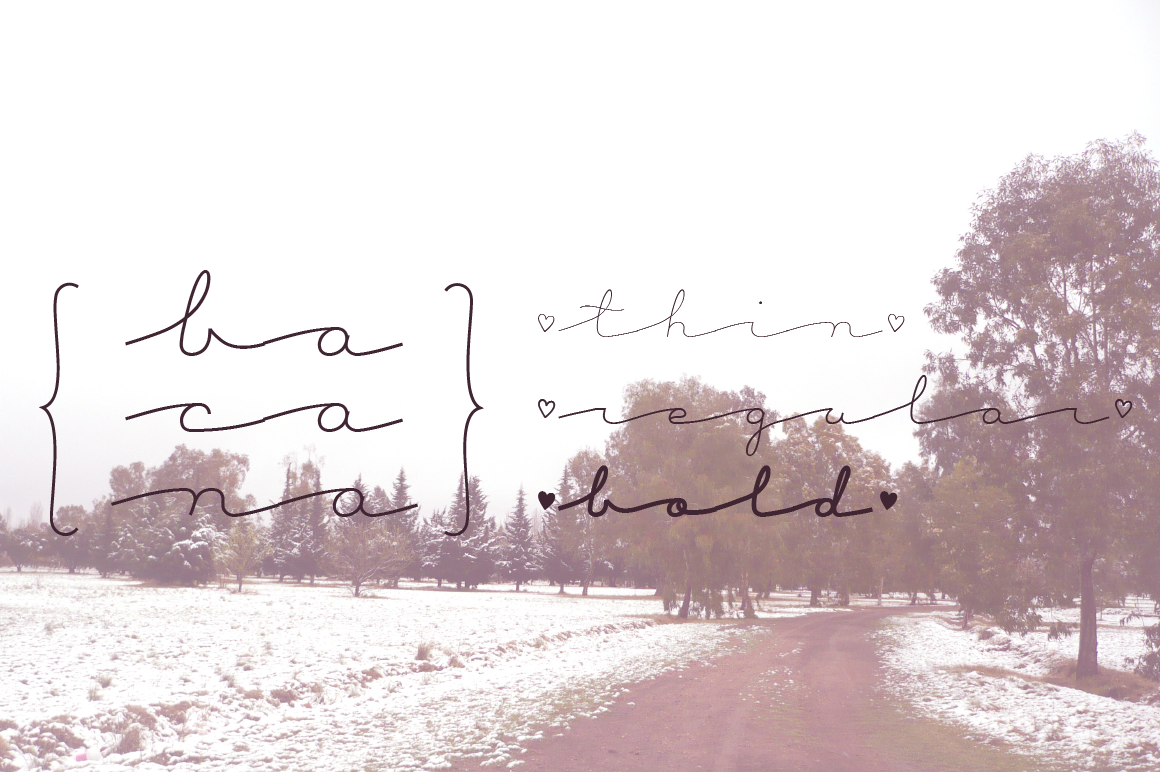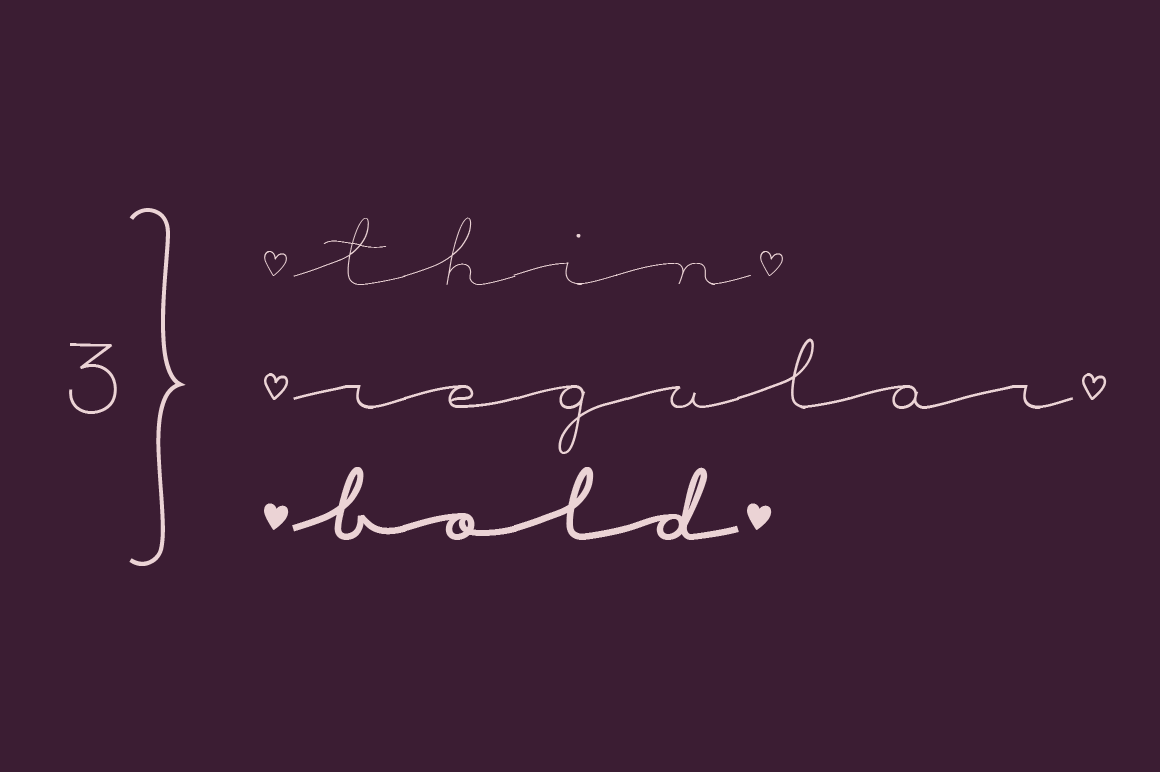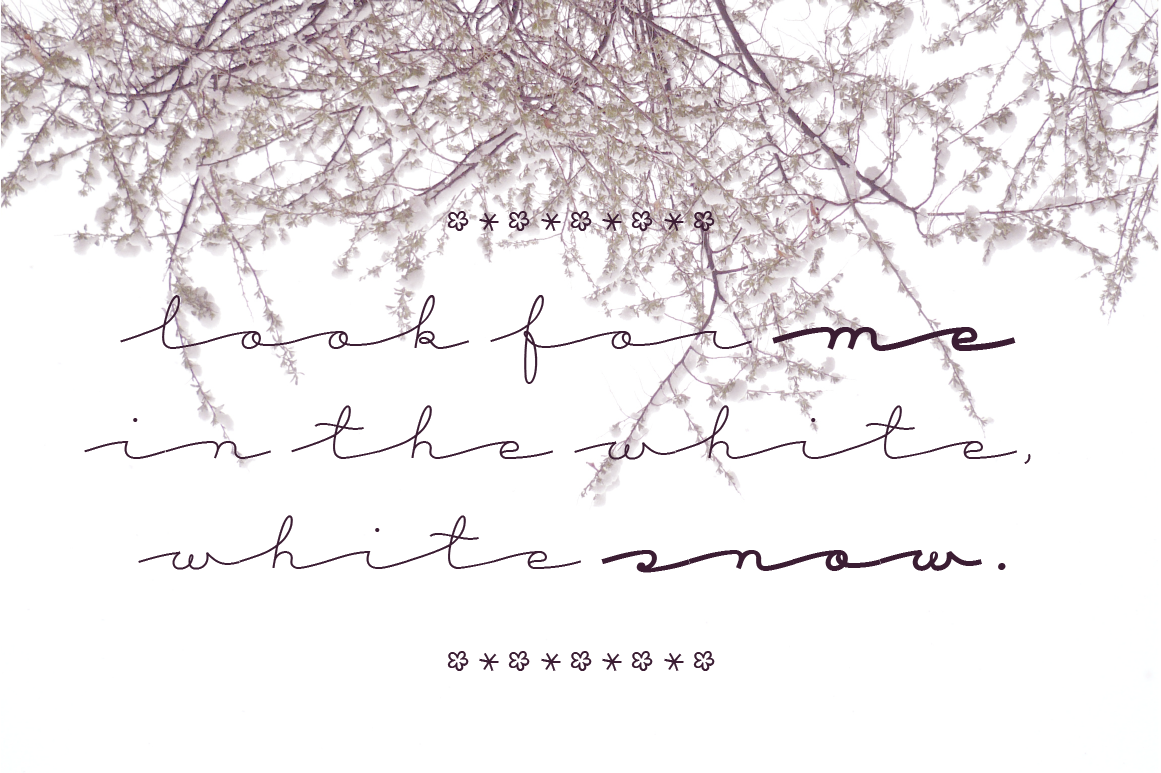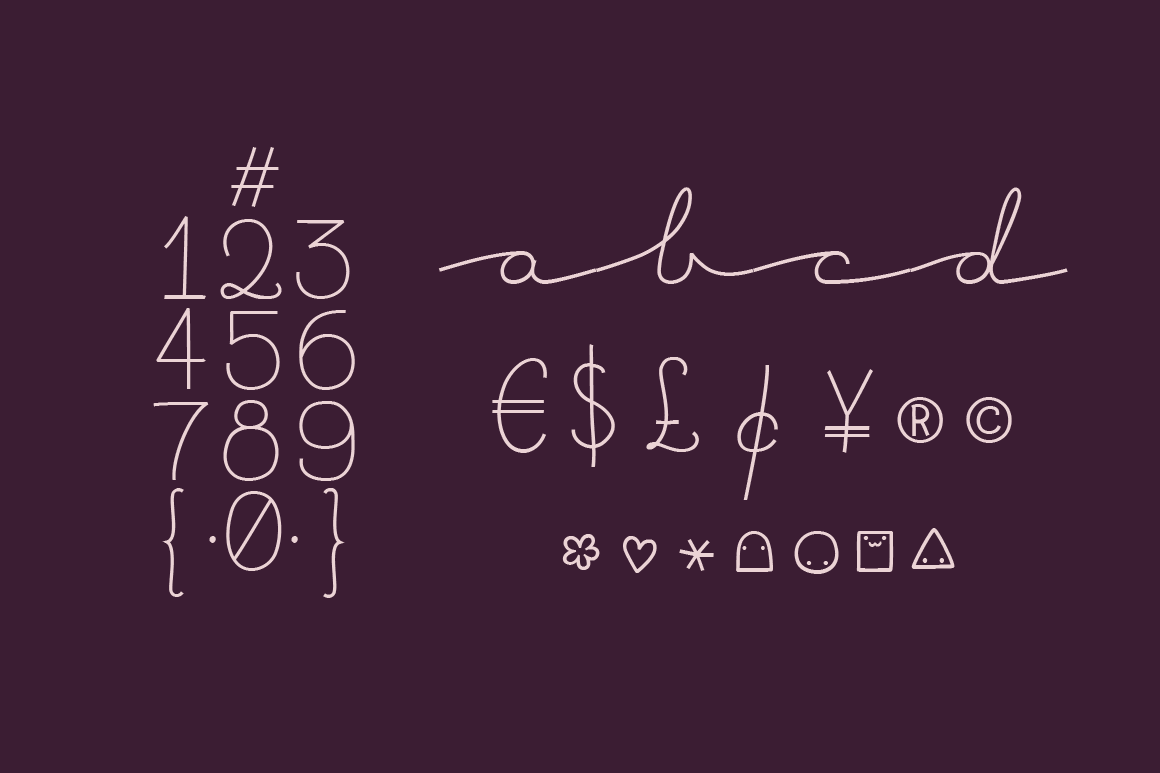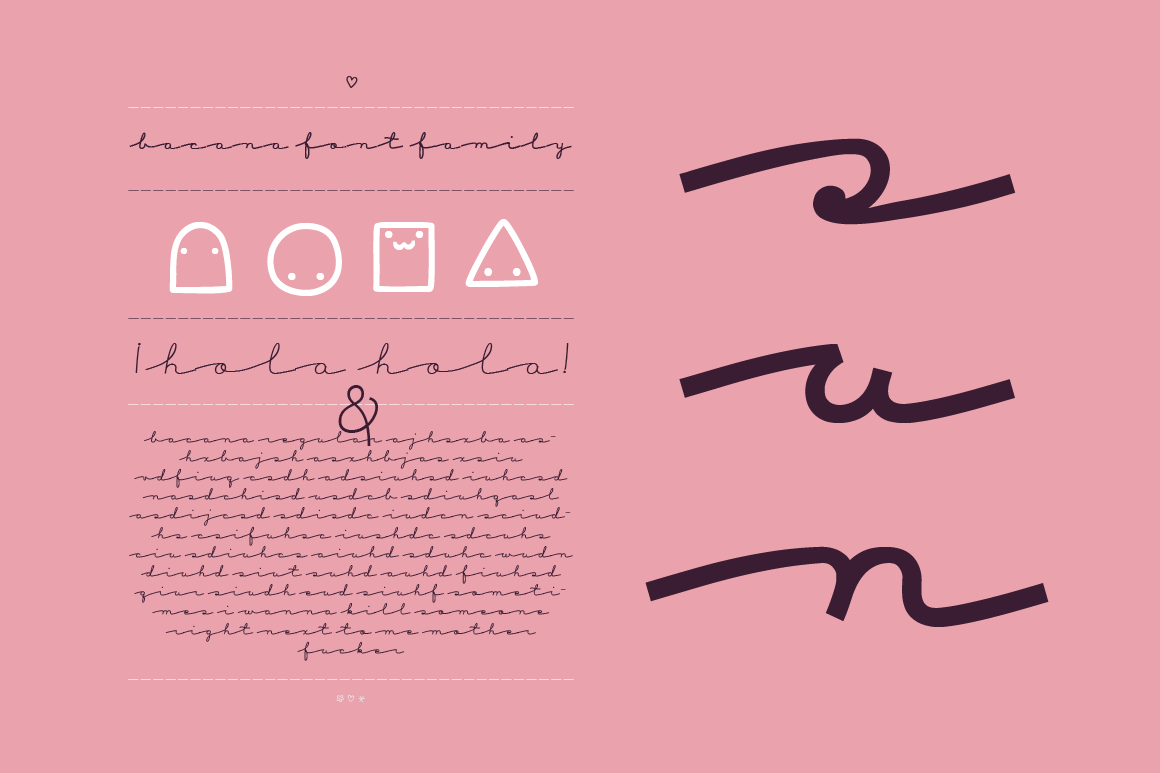
Bacana Font: Elevate Your Designs with a Casual, Swashy Display Font
Are you tired of using the same old fonts in your designs? Look no further than the Bacana Font, a casual, swashy display font that is sure to add a touch of elegance and sophistication to your projects. With its thin monoline design and three unique styles, Bacana Font is the perfect choice for designers and crafters looking to make a statement.
What is Bacana Font?
Bacana Font is a modern, display font that features a thin monoline design with a casual, swashy feel. The font comes in three styles, allowing you to create a wide variety of designs that are both stylish and cohesive. Whether you’re working on a branding project, a craft project, or simply looking for a new font to add to your collection, Bacana Font is a versatile choice that is sure to impress.
Key Features of Bacana Font
• Casual, swashy design: Bacana Font features a relaxed, swashy design that adds a touch of elegance to any project.
• Thin monoline design: The font’s thin monoline design makes it perfect for use in a variety of applications, from branding and advertising to crafting and DIY projects.
• Three unique styles: With three styles to choose from, you can create a wide range of designs that are both stylish and cohesive.
• High-quality design: Bacana Font is designed with high-quality craftsmanship in mind, ensuring that your designs look professional and polished.
Uses for Bacana Font
Bacana Font is a versatile font that can be used in a variety of applications, including:
• Branding and advertising: Use Bacana Font to create eye-catching logos, advertisements, and marketing materials that stand out from the crowd.
• Crafting and DIY projects: Add a touch of elegance to your crafting and DIY projects, such as handmade cards, gift tags, and scrapbook pages.
• Digital design: Use Bacana Font in your digital designs, such as social media graphics, blog headers, and website designs.
• Print design: Use Bacana Font in your print designs, such as brochures, flyers, and posters.
Tips for Using Bacana Font
Here are a few tips for getting the most out of Bacana Font:
• Experiment with different styles: Try combining different styles of Bacana Font to create unique and interesting designs.
• Use it sparingly: Because Bacana Font is a display font, it’s best to use it sparingly to add emphasis and interest to your designs.
• Pair it with other fonts: Try pairing Bacana Font with other fonts to create a cohesive and visually appealing design.
In conclusion, Bacana Font is a versatile and stylish font that is perfect for designers and crafters looking to add a touch of elegance and sophistication to their projects. With its casual, swashy design and three unique styles, Bacana Font is sure to become a go-to font in your collection. Whether you’re working on a branding project, a craft project, or simply looking for a new font to add to your collection, Bacana Font is a great choice.